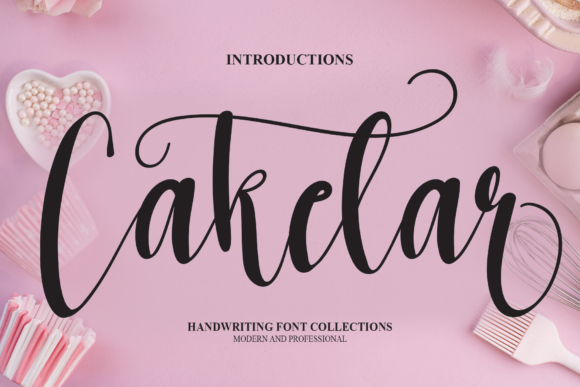
The Perfect Script: Elevate Your Designs with Caketar Font
Have you ever stared at a blank page, waiting for inspiration to strike? You know, that moment when the creative juices start flowing, and ideas begin to pour in? It’s a magical feeling, and it’s exactly what happens when you’re about to start a new design project. The possibilities are endless, and the right font can make all the difference.
That’s where Caketar Font comes in – a beautiful, handcrafted script font that’s perfect for adding a personal touch to your designs. With its elegant, flowing lines, Caketar Font is ideal for a wide range of projects, from wedding invitations to product packaging. Whether you’re a seasoned designer or just starting out, this font is a valuable addition to your toolkit.
Caketar Font Key Features
- Unique Characteristics: Caketar Font features a unique blend of modern and vintage elements, with intricate details and ornate flourishes.
- Style Options: Caketar Font is available in a range of styles, including regular, bold, italic, and bold-italic.
Caketar Font Review
I recently had the chance to work with the Caketar Font, and I must say it’s a unique and eye-catching choice. ✨ The font’s playful, handwritten feel makes it perfect for creating a whimsical atmosphere in designs. ✨ It’s ideal for use in social media graphics, blog headers, or any project that requires a touch of personality.
- ✨ The font’s customizability is a major plus. It’s available in a range of styles, from casual to elegant, making it versatile enough to suit different design needs.
- ✨ The Caketar Font is highly legible, even at smaller font sizes, making it a great choice for body text or captions.
- ✨ The font’s bold, expressive lines add a lot of visual interest to designs, making it a great choice for creating attention-grabbing headlines.
However, there are a few limitations to consider. ⚠️ The font may not be the best choice for formal or professional designs, as its playful feel may not be taken seriously. ⚠️ Additionally, the font’s customizability can sometimes make it feel inconsistent or uneven, depending on how it’s used.
Overall, I think the Caketar Font is a great choice for designers looking to add some personality to their projects. While it may not be the best fit for every design, it’s definitely worth considering for projects that require a touch of whimsy or playfulness.
For optimal results, use the Caketar font in bold or italic styles to add emphasis and visual interest to your design.
To achieve the best results, use the Caketar font in combination with other design elements, such as graphics and textures, to create a visually appealing design.
For best results, use the Caketar font in headings and titles to create a clear hierarchy of information and visual interest.
The Caketar font is ideal for use in branding, packaging, and marketing materials, particularly in the food and beverage industry.
Use the Caketar font to create eye-catching headlines, titles, and labels that grab attention and stand out from the crowd.
Alternatives to Caketar Font for Designers
Great Vibes Font is a beautiful, elegant script font that is perfect for adding a touch of sophistication to your designs. It is ideal for use in wedding invitations, event branding, and any project that requires a high-end, luxurious feel. Great Vibes Font is a more refined and polished alternative to Caketar Font, with a more subtle and refined feel.
Alex Brush Font is a modern, handwritten script font that is perfect for designers who want to add a touch of personality to their projects. It is ideal for use in blog posts, social media graphics, and any project that requires a friendly, approachable feel. Alex Brush Font is a more casual and relaxed alternative to Caketar Font, with a more playful and spontaneous feel.